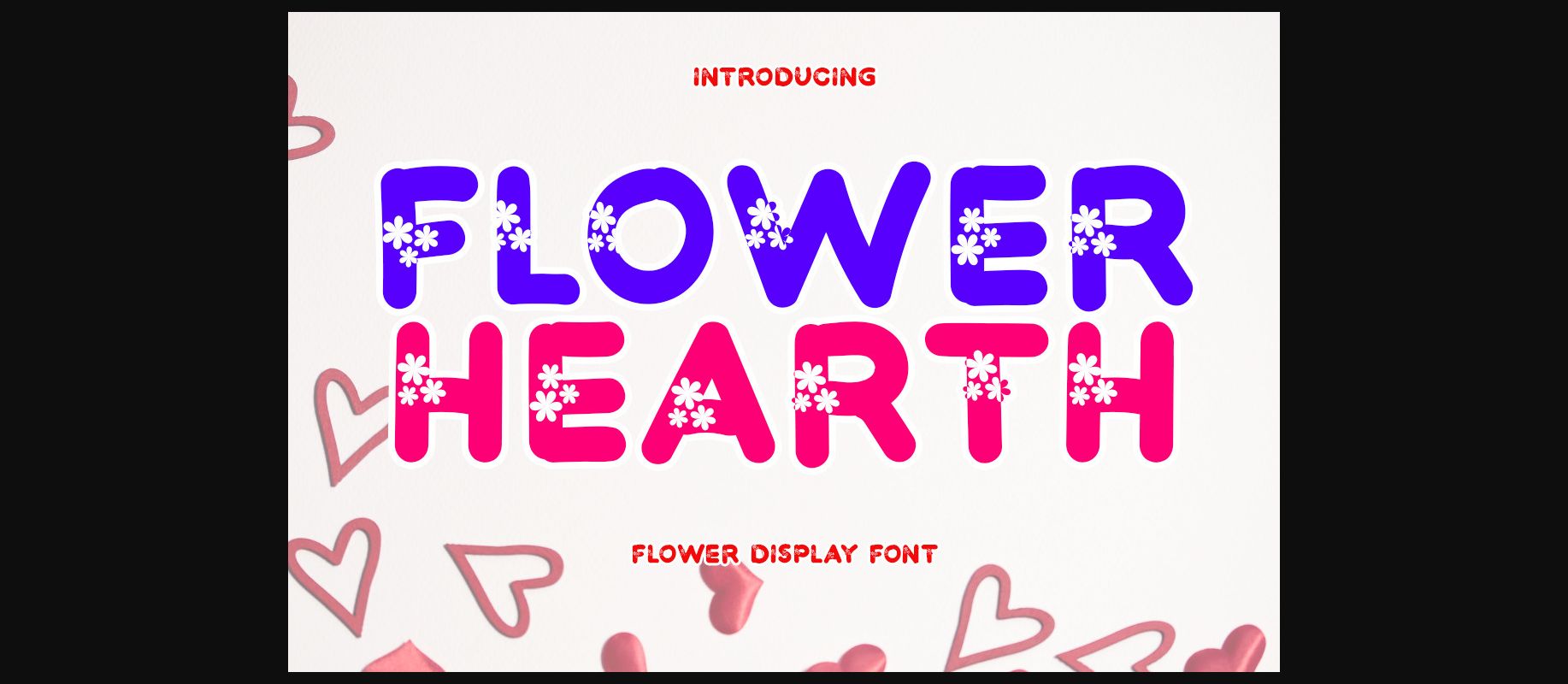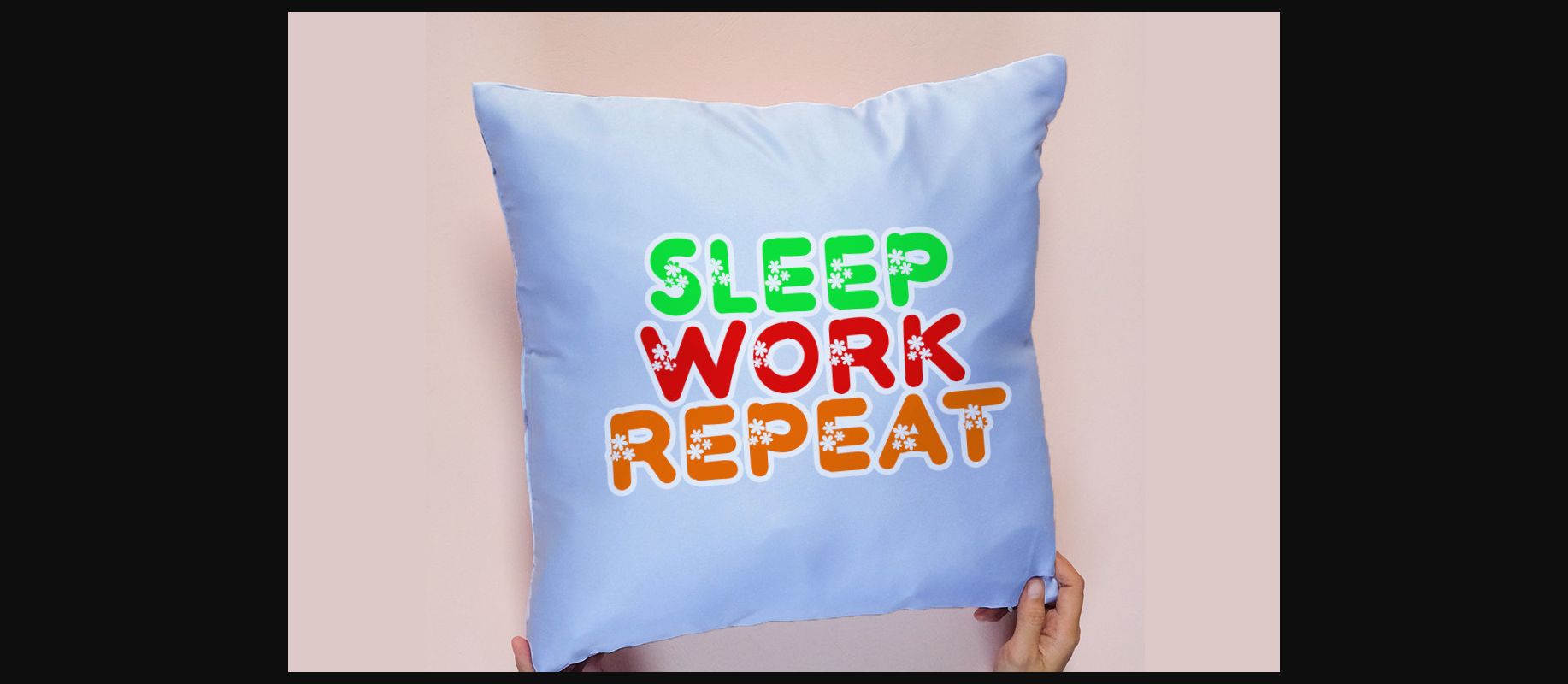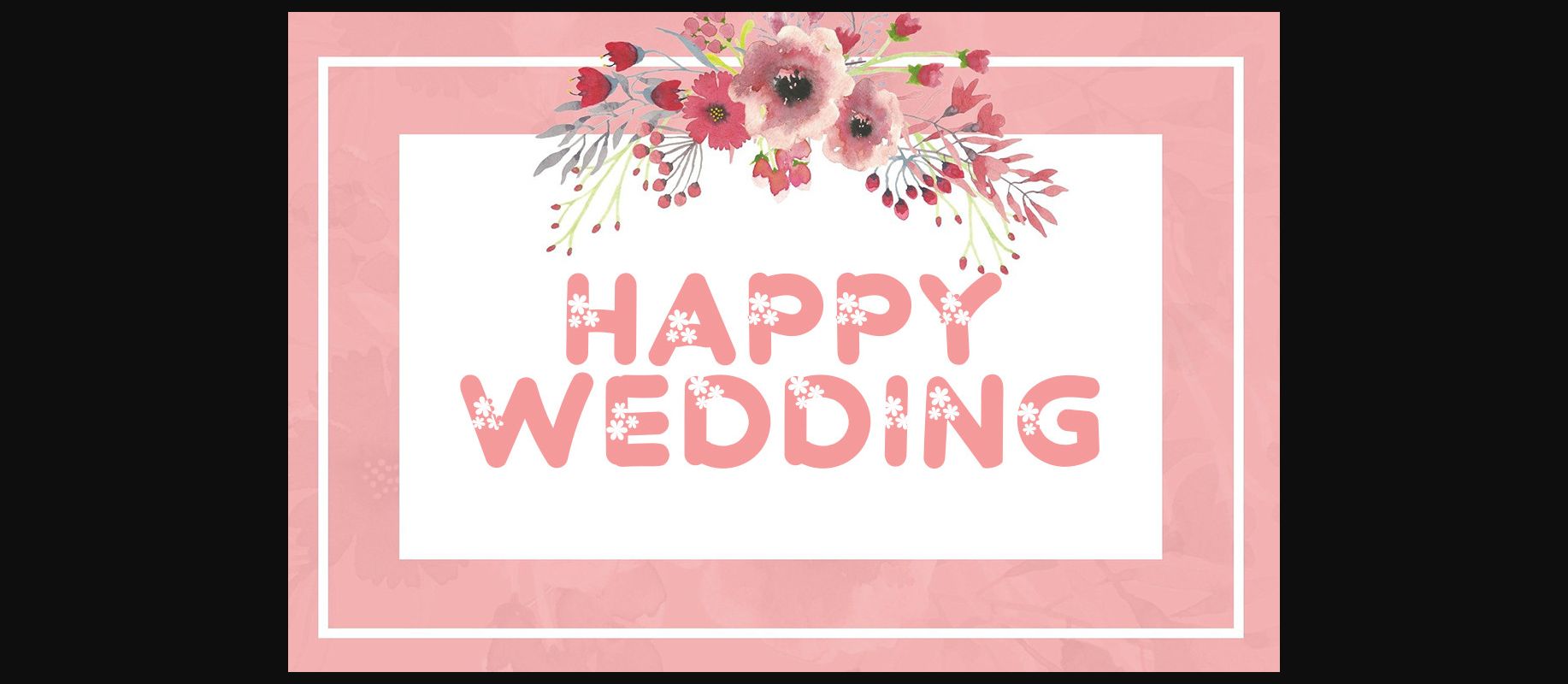
Flower Hearth Font
About Flower Hearth Font
Flower Hearth is a beautiful and sweet font. It is fresh, clean, and elegant. You can see little white flowers in this creative font. It will add an incredibly joyful and spring-like touch to your designs.